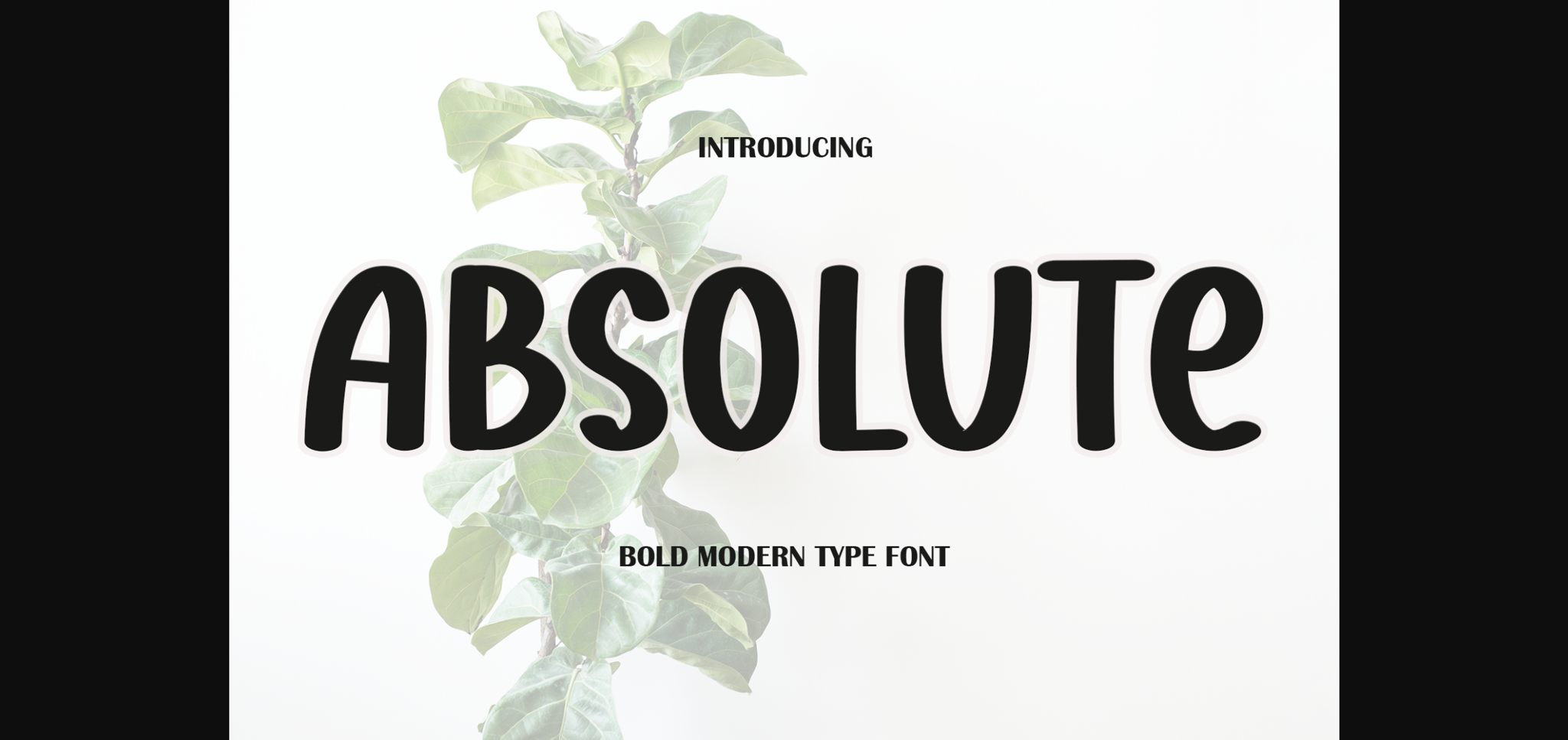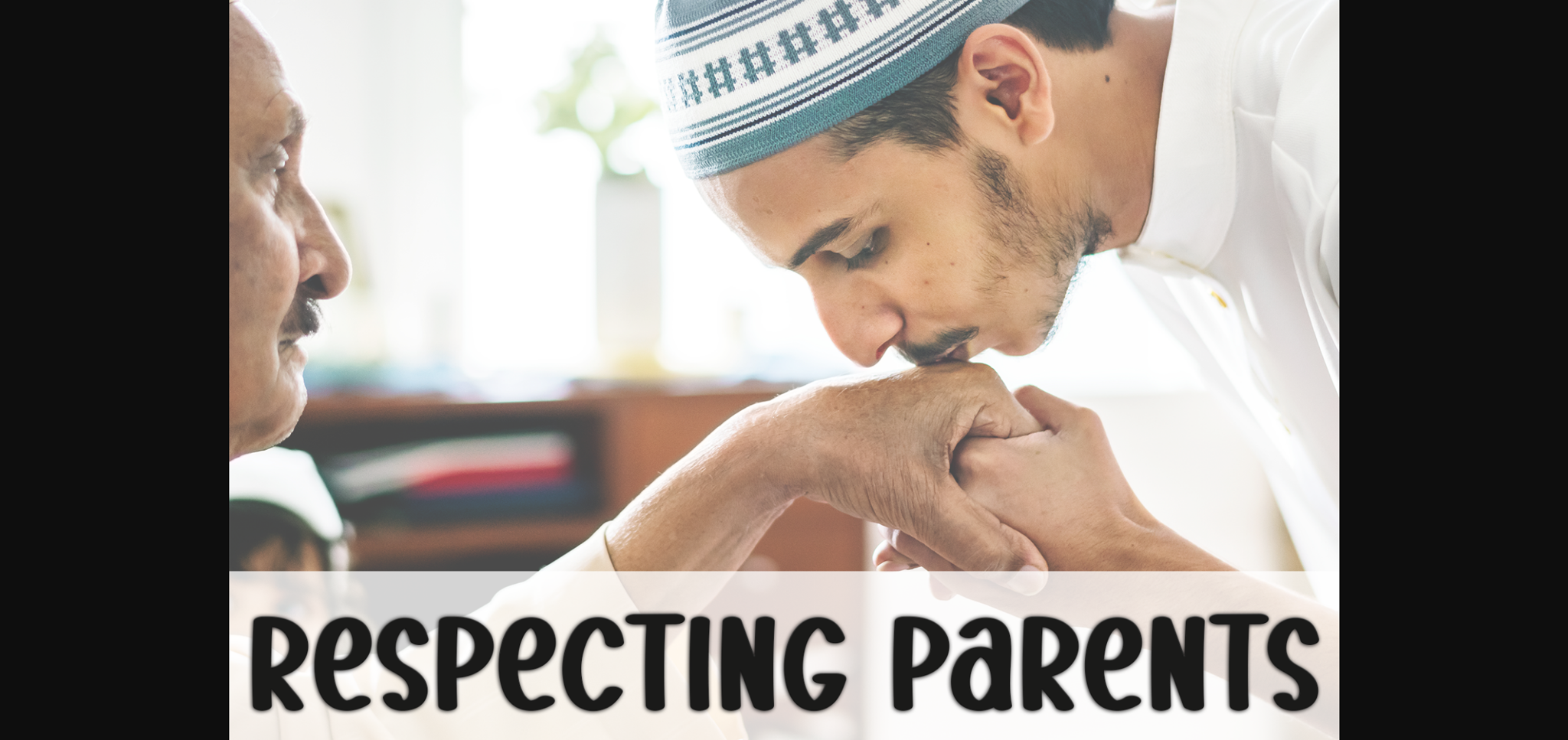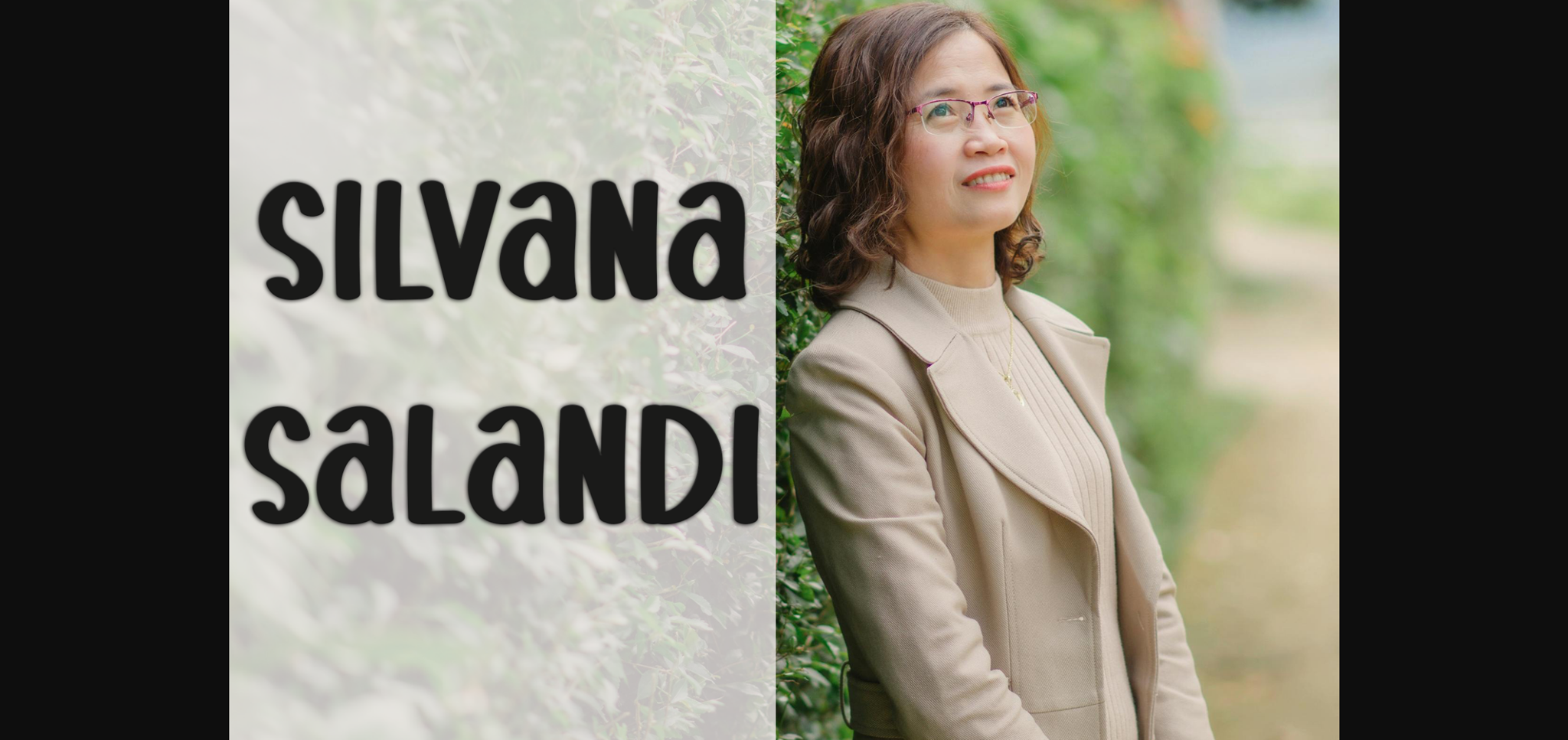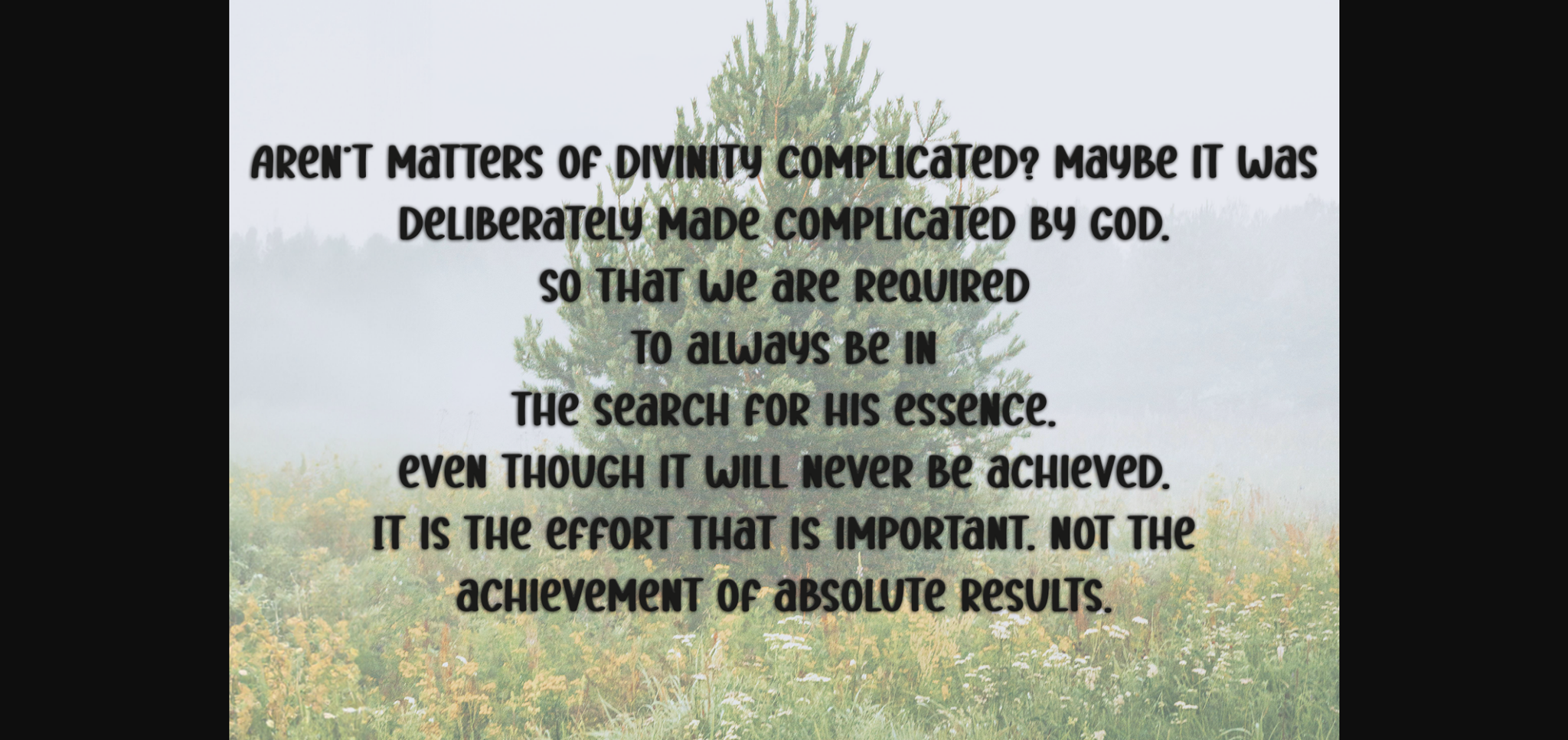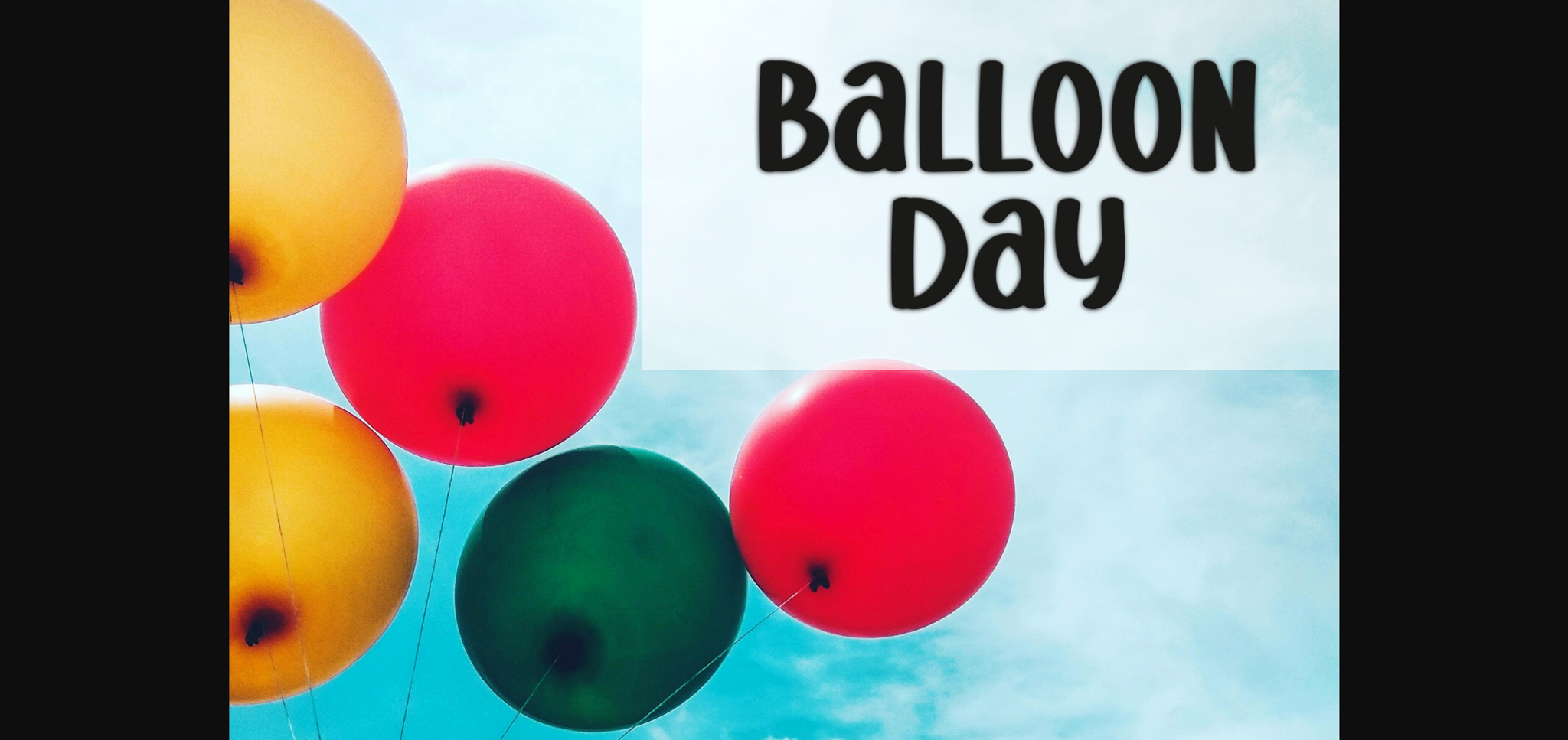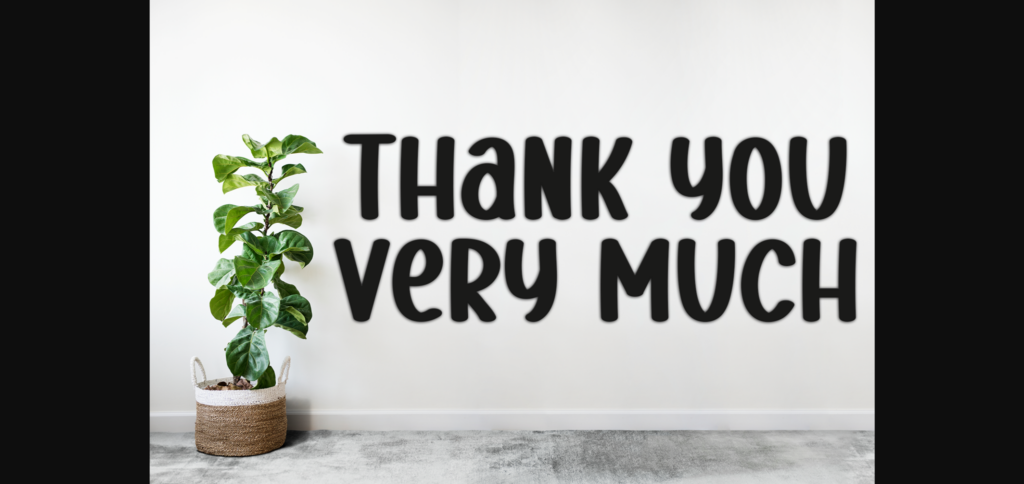
HomeSans Serif FontsAbsolute Font Sans Serif Fonts Absolute Font FacebookXPinterestWhatsApp 1 of 9 ... Absolute Font Poster 2... Absolute Font Poster 3... Absolute Font Poster 4... Absolute Font Poster 5... Absolute Font Poster 6... Absolute Font Poster 7... Absolute Font Poster 8... Absolute Font Poster 9... About Absolute Font Absolute is a cool and modern sans-serif font. Whether you’re using it for crafts, digital design, presentations, or creating greeting cards, this font has the potential to be your go-to font, whatever the occasion. DOWNLOAD NOW People also explored Saturday Font Zadekah Rhittonga Font James Ariyale – Handwritten Font Rockath Font Sweet Couple Font House Doodles Gothferatu Font Black Door Font Quilla Font 261 0 TagsAbsolute Font Previous articleWelcome Winter FontNext articleCanvas Font LEAVE A REPLY Cancel reply Comment: Please enter your comment! Name:* Please enter your name here Email:* You have entered an incorrect email address! Please enter your email address here Website: Save my name, email, and website in this browser for the next time I comment. Personal Use Free Rafika Personal Use Free Read more about this font Baby Magnolia Personal Use Free Read more about this font Nesto Copper 42 Font Personal Use Free Read more about this font Crayones Personal Use Free Read more about this font BLOG Free vs Paid Fonts: Why Investing in Premium Fonts Is Worth It Free vs Paid Fonts: Why Premium Fonts Are Worth It in 2025 The debate of free vs paid fonts continues in the design world. While... To increase your work productivity, choose the most readable fonts. Modern Sans-Serif Fonts That Brands Love in 2025 5 Fonts That Will Dominate Design Trends in 2026